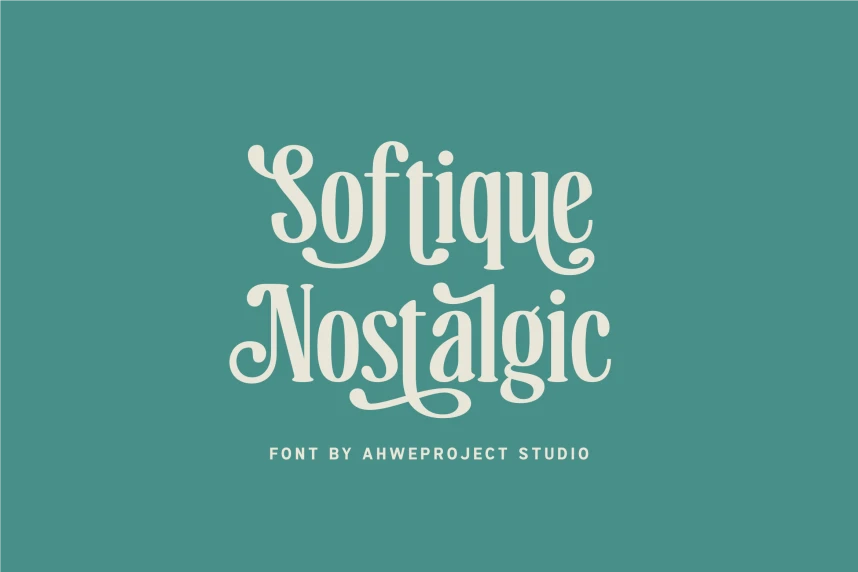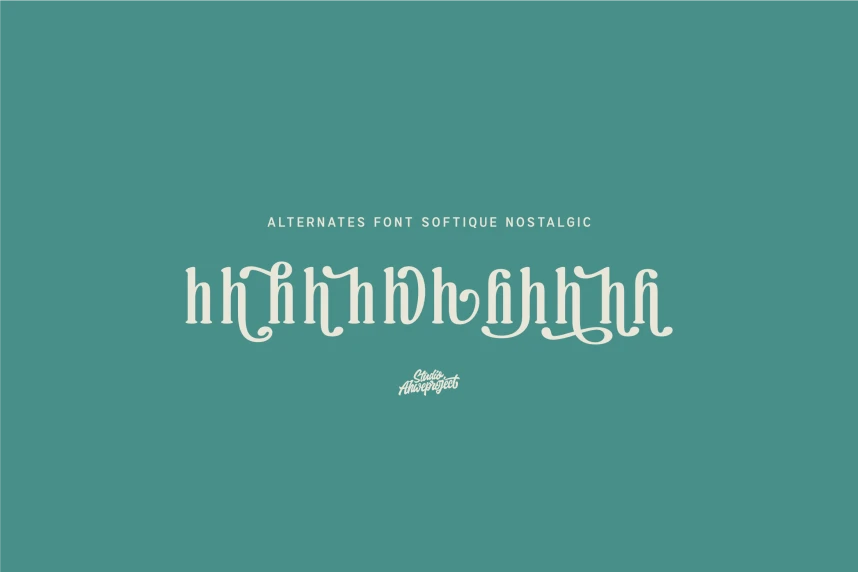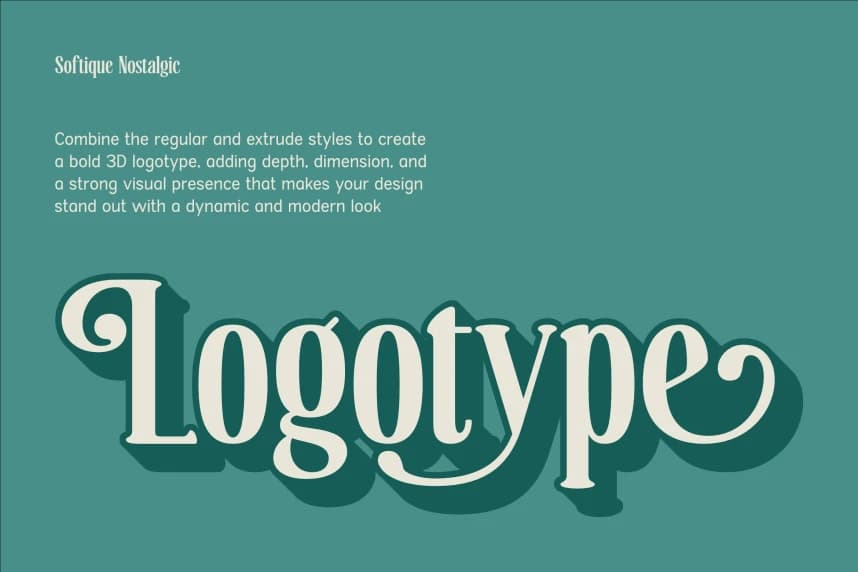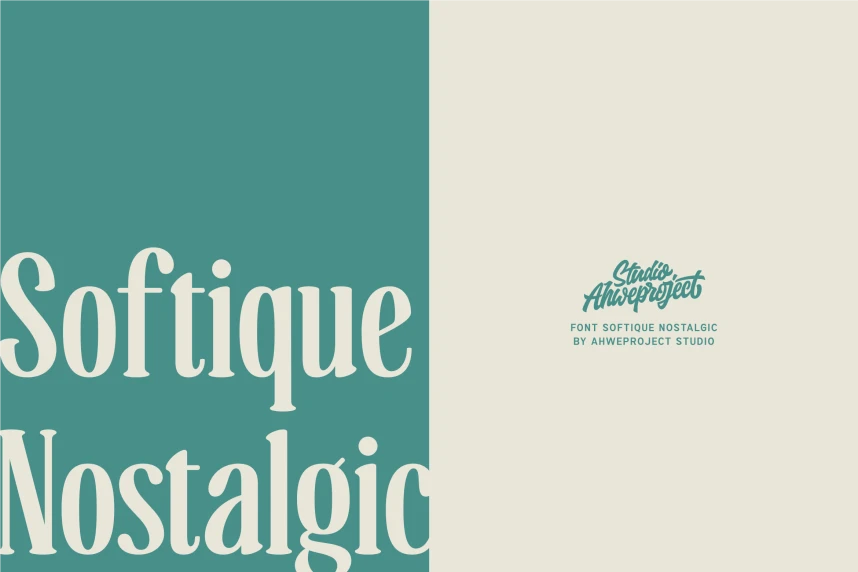
Softique Nostalgic Font is an elegant vintage-inspired font that brings warmth, charm, and timeless beauty into your designs. Crafted with smooth curves and distinctive character details, this typeface is perfect for branding, logos, packaging, wedding invitations, and social media content that need
Softique Nostalgic Font is an elegant vintage-inspired font that brings warmth, charm, and timeless beauty into your designs. Crafted with smooth curves and distinctive character details, this typeface is perfect for branding, logos, packaging, wedding invitations, and social media content that needs a soft yet premium touch.